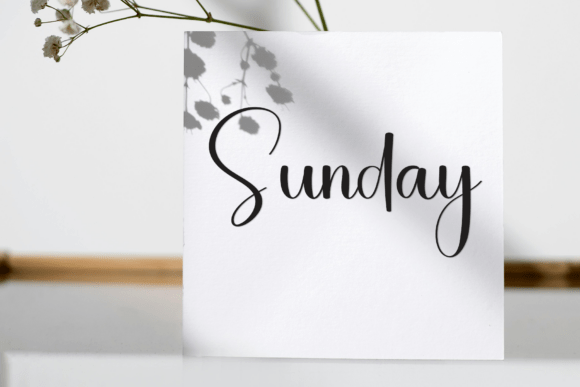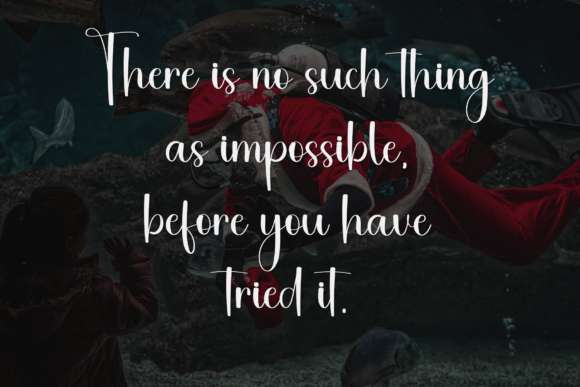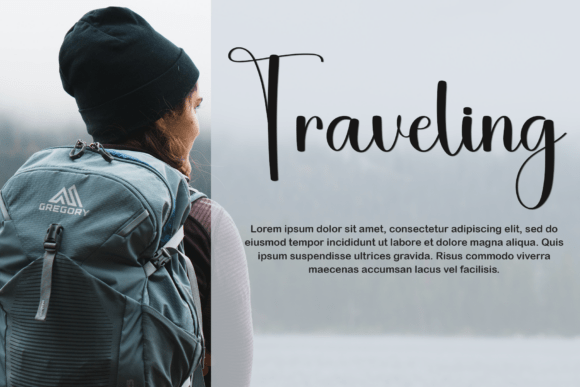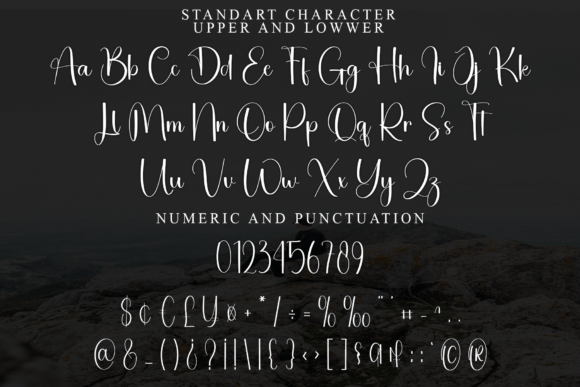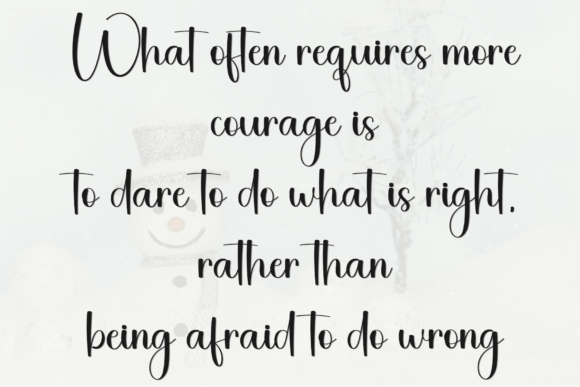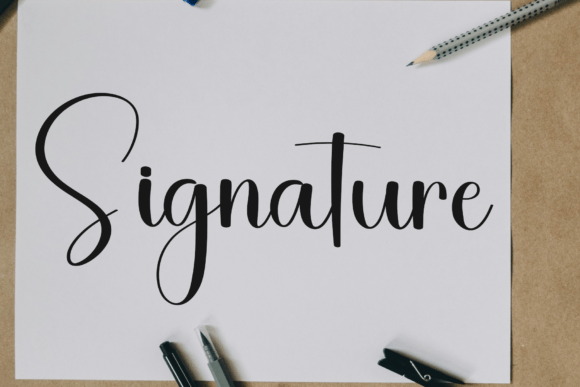
Creating Love at First Sight with Beauty Valentine Font
There’s something magical about stumbling upon the perfect font for a design project. It’s that moment when the words start flowing, and your vision begins to take shape. For many designers, this moment is the spark that ignites their creativity. Whether you’re working on a new logo, branding, or quote, the right font can make all the difference.
That’s where the Beauty Valentine Font comes in – a lovely and timeless handwritten font that adds a touch of elegance to any design. With its unique and beautiful touch, this font is sure to make your design come alive. As a designer, you’ll appreciate the versatility of the Beauty Valentine Font, which can be used for a wide range of projects, from wedding invitations to social media graphics.
Beauty Valentine Font Key Features
- Font Family: A beautiful, elegant script font ideal for romantic and feminine designs.
- Unique Characteristics: Distinctive swashes, flourishes, and connections between letters create a romantic and elegant feel.
Designer Review: Beauty Valentine Font
Overall, I think the Beauty Valentine Font has its moments, but it’s not without its quirks. ✨ Here are some things that work well:
- Unique and elegant feel: The font’s intricate design and ornate details give it a sophisticated, high-end look that’s perfect for luxury branding or special occasions.
- Good legibility: Despite its complexity, the font is surprisingly easy to read, even at smaller sizes.
- Customization options: The font comes in a range of weights and styles, making it easy to find the perfect fit for your project.
However, there are also some limitations to consider: ⚠️
- Overly ornate: While the font’s details are beautiful, they can sometimes make it feel cluttered or overwhelming, especially in smaller sizes or when used for large blocks of text.
- Lack of consistency: Some of the letterforms feel a bit inconsistent, which can be jarring to the eye.
- Not suitable for body text: Due to its ornate nature, the font is best used for headings or titles, rather than body text.
Overall, I think the Beauty Valentine Font is a great choice for designers who want to add a touch of elegance and sophistication to their projects. However, it’s not a one-size-fits-all solution, and you’ll need to carefully consider its limitations before deciding to use it.
To get the most out of the Beauty Valentine Font, try the following:
- Use it for romantic or feminine-themed designs.
- Pair it with bold or cursive fonts for a striking contrast.
The Beauty Valentine Font is commonly used for:
- Valentine’s Day cards and gift tags.
- Feminine-themed blog posts and social media graphics.
Alternatives to Beauty Valentine Font for Designers
Great Vibes Font is a modern script font that is perfect for creating a romantic and elegant look. It is ideal for use in wedding invitations, branding, and packaging design. Great Vibes Font is more cursive and fluid compared to Beauty Valentine Font, making it a great choice for designers who want to add a touch of whimsy to their designs.
Carolyna Pro Font is a elegant and sophisticated script font that is perfect for creating a luxurious and high-end look. It is ideal for use in branding, packaging design, and editorial design. Carolyna Pro Font is more refined and polished compared to Beauty Valentine Font, making it a great choice for designers who want to add a touch of sophistication to their designs.
Playfair Display Font is a luxurious and elegant serif font that is perfect for creating a high-end and sophisticated look. It is ideal for use in branding, packaging design, and editorial design. Playfair Display Font is more classic and timeless compared to Beauty Valentine Font, making it a great choice for designers who want to add a touch of elegance to their designs.